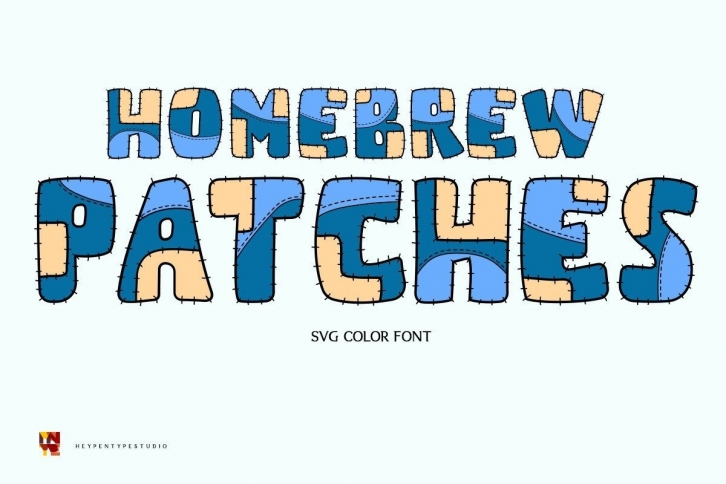
Homebrew Patch is a cute and fun display color font. It embodies playfulness and authenticity and is the perfect choice for any children’s activity or school project. Add this chunky lettered font to your designs and notice how it makes them come alive!